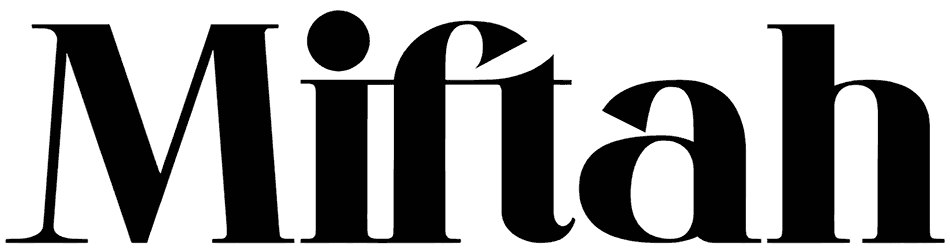
Miftah Font
Meet Miftah, a serif font with a classic and old-fashioned vibe. As a nostalgic font, it has a unique face and can be matched with a lot of designs, although it doesn’t contain an option for numerals. Use Miftah in projects, for instance, posters, vintage design, merchandise, or the like, and show your creativity.
Miftah is a modern serif font made for any professional project brandings which is best used for logos, brandings, and quotes. Every letter has a unique and beautiful touch.What’s included :
• Ligatures
• Stylistic Sets
• Swashes
• Multilingual Supports
• Numerals and PunctuationsHappy Design